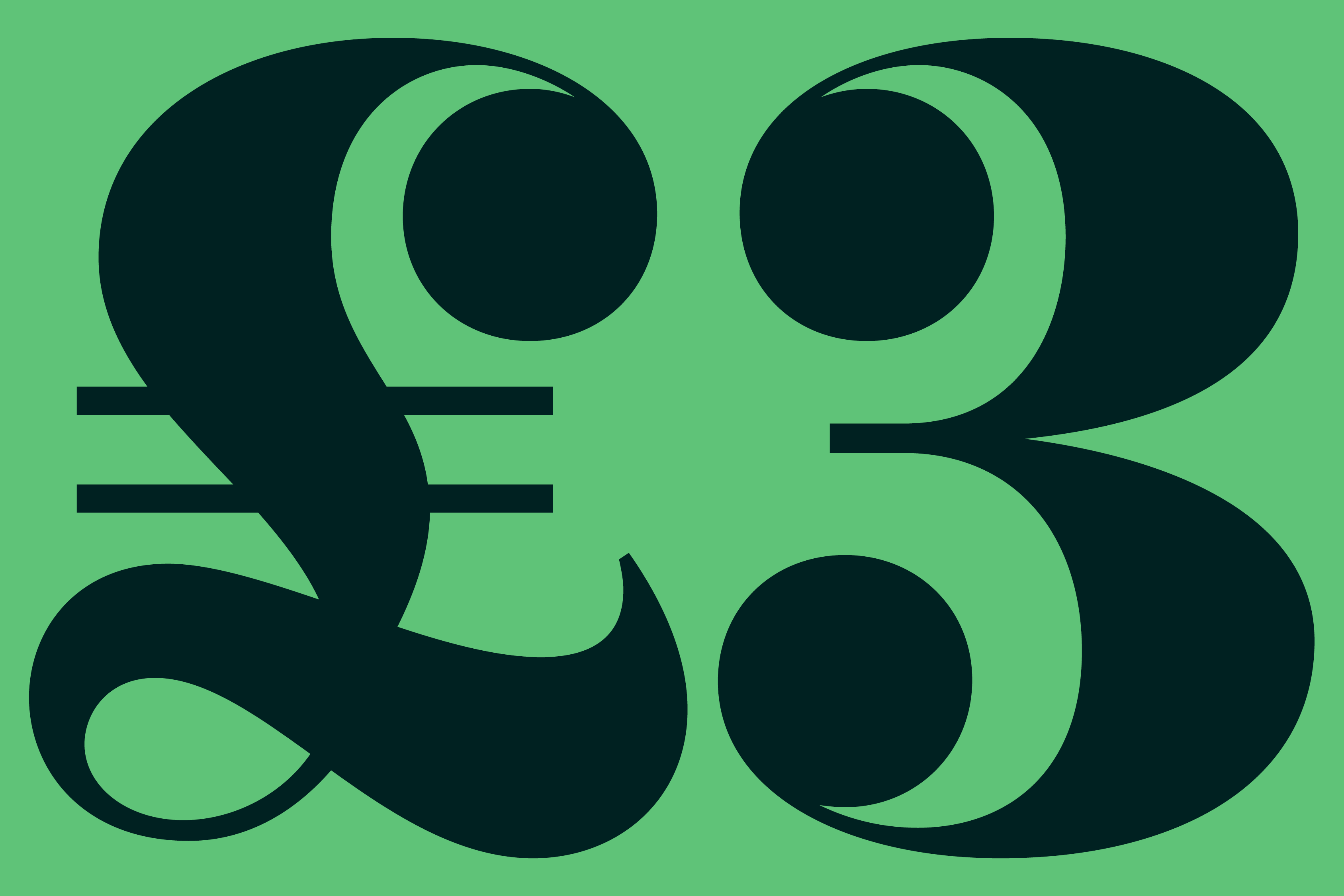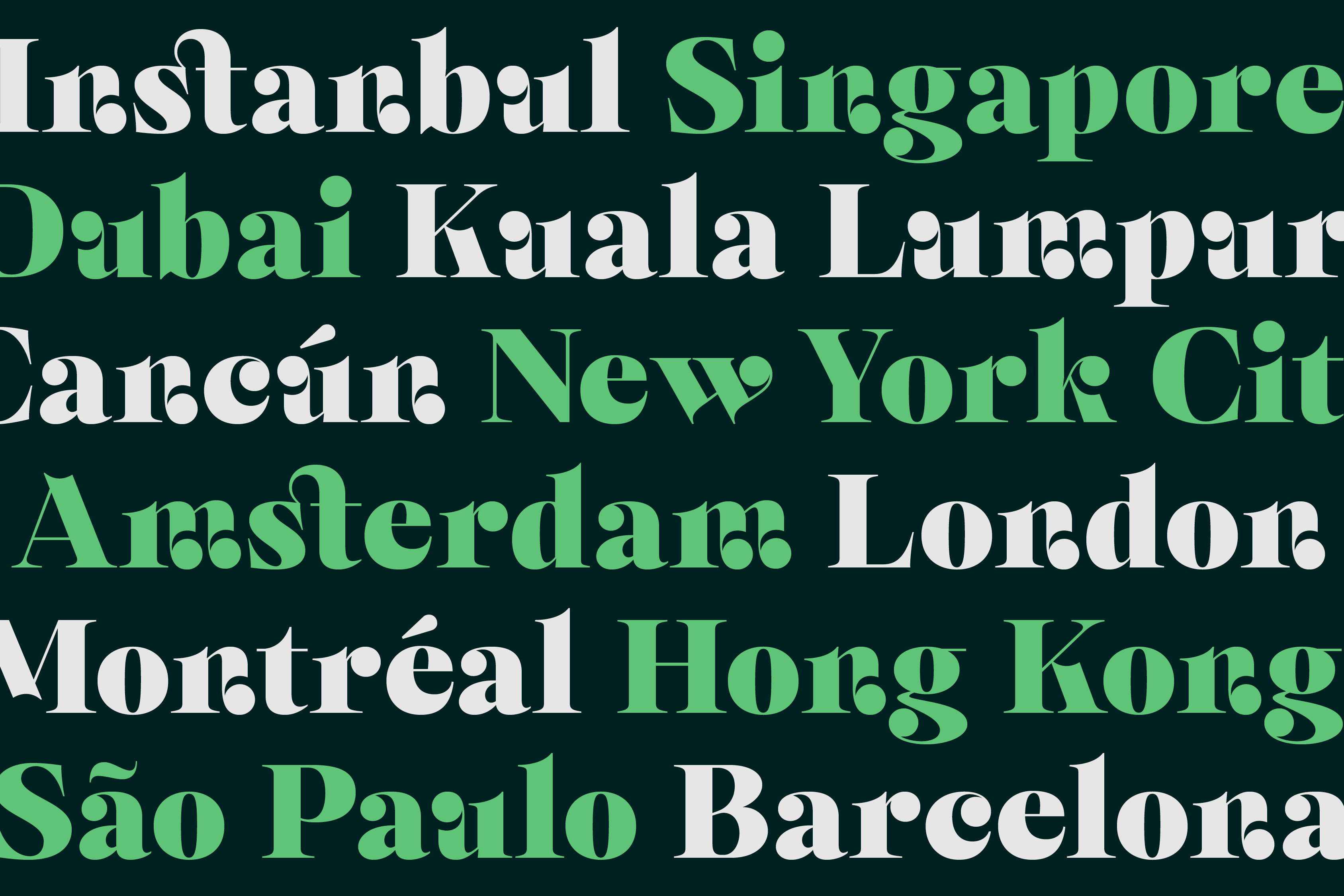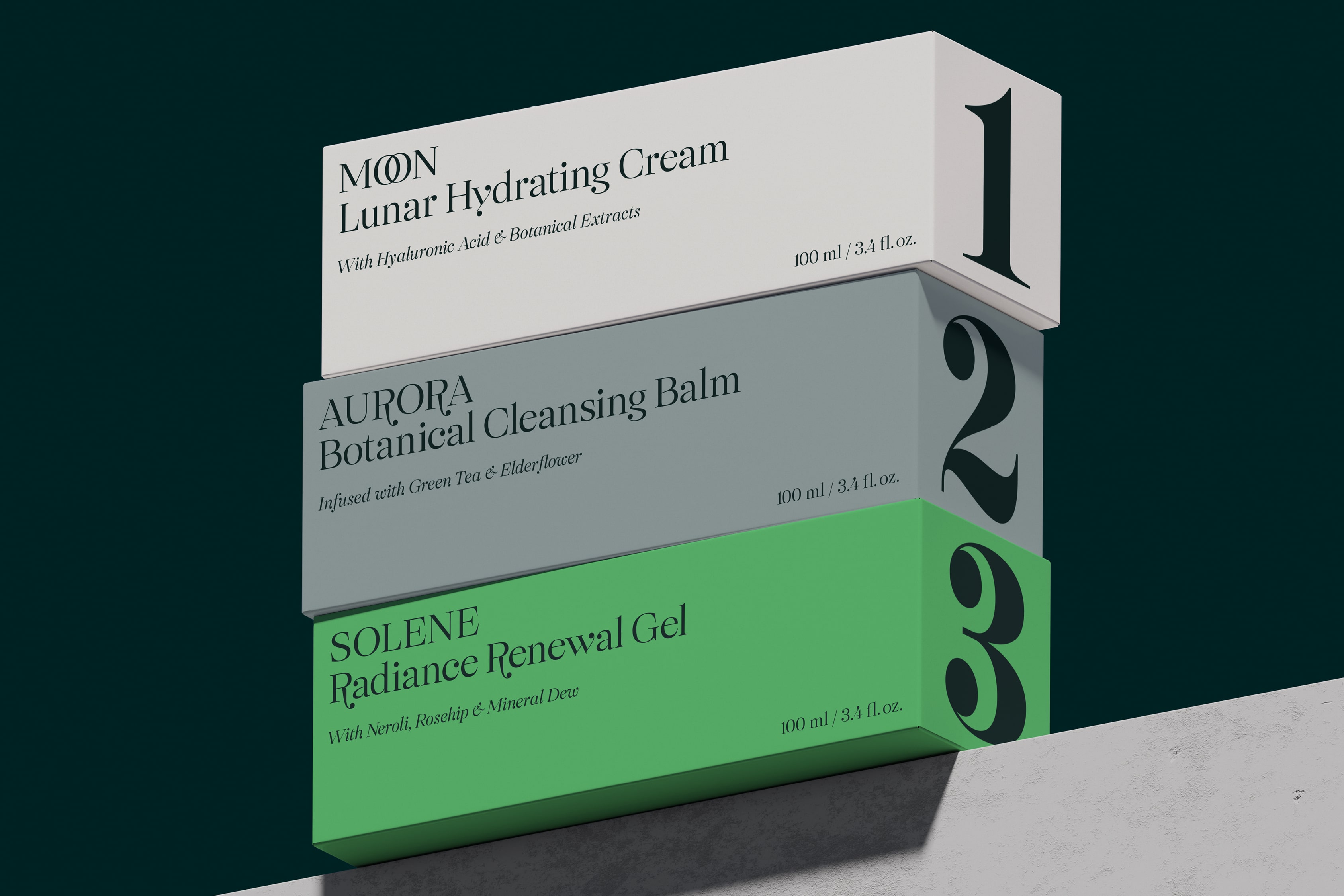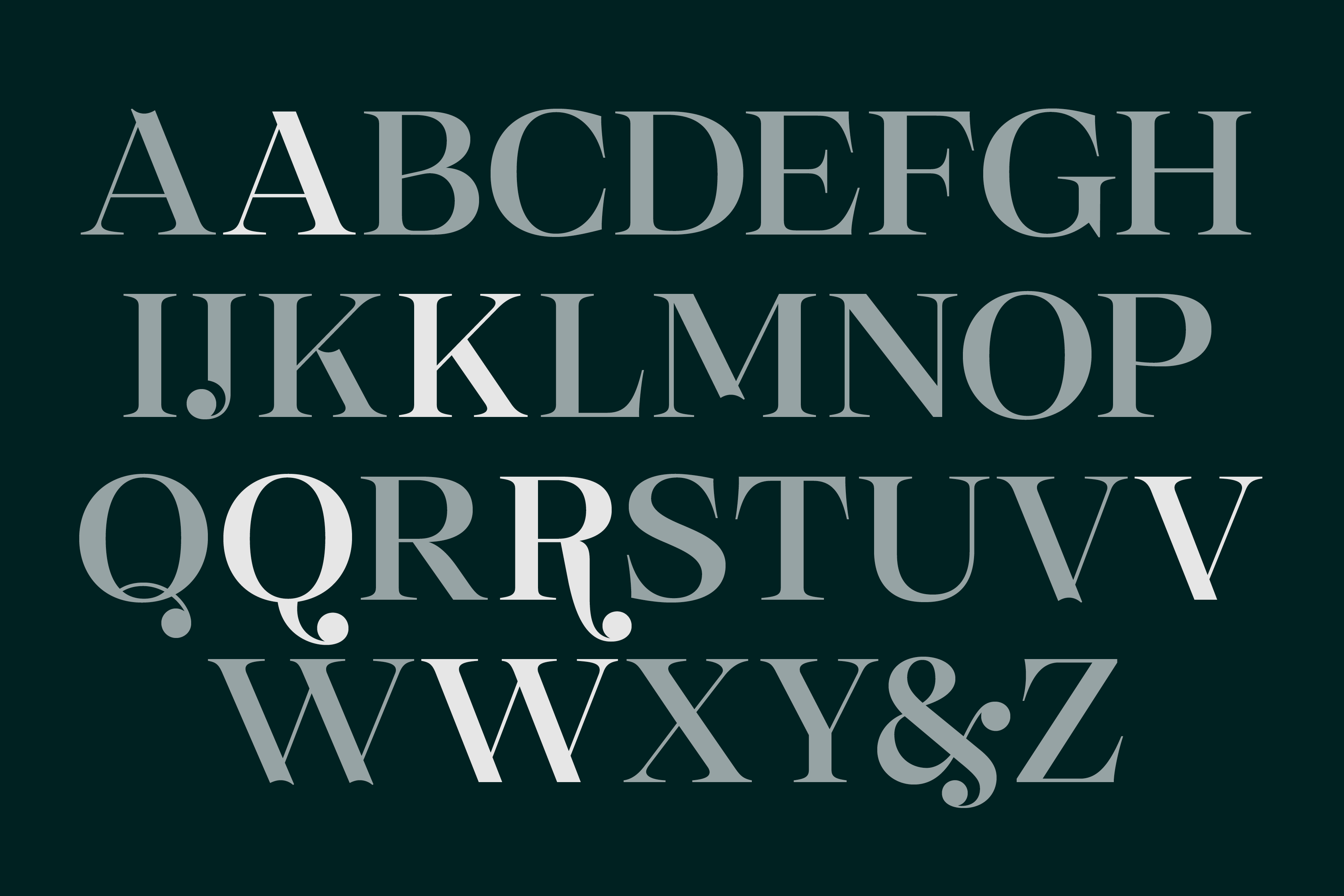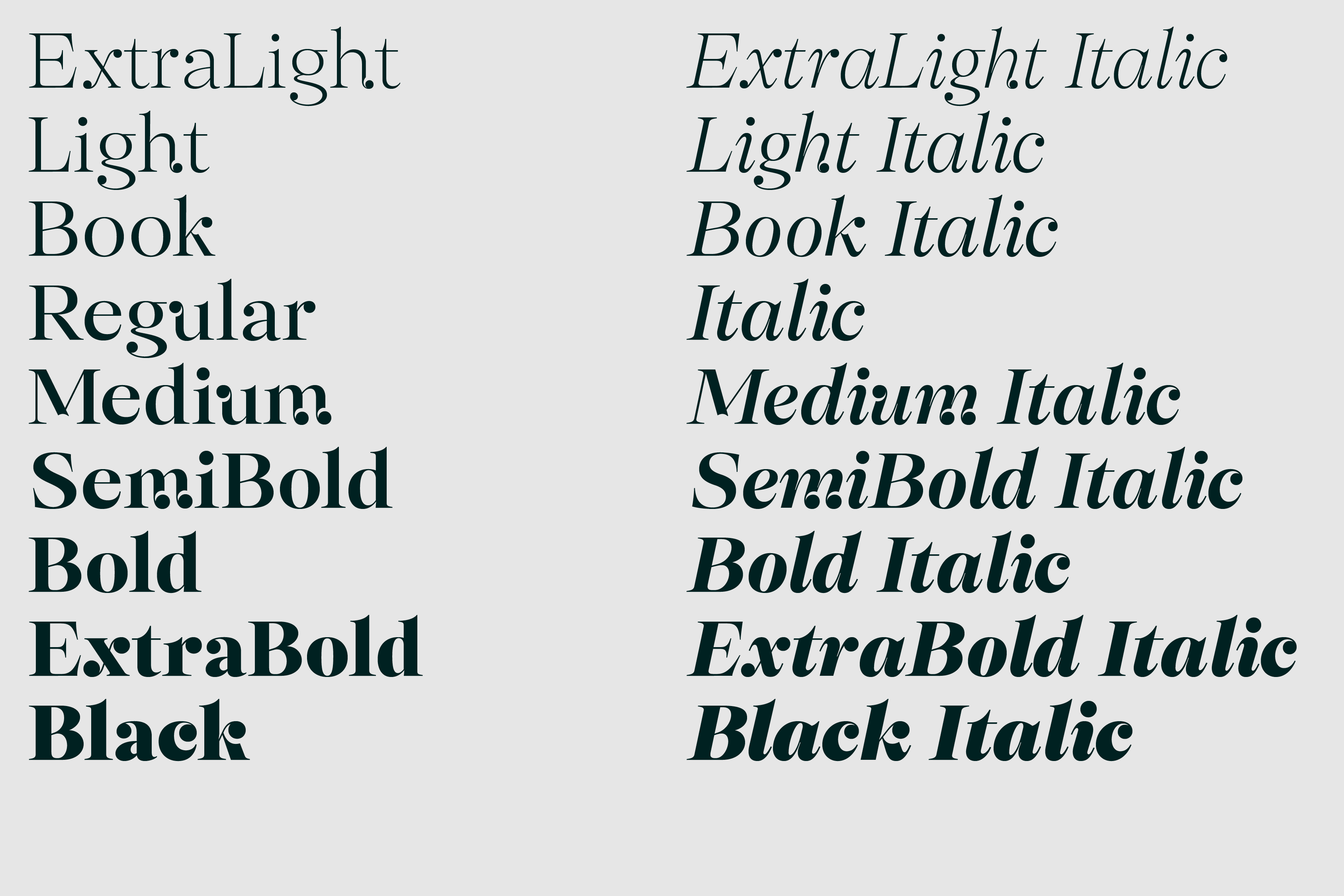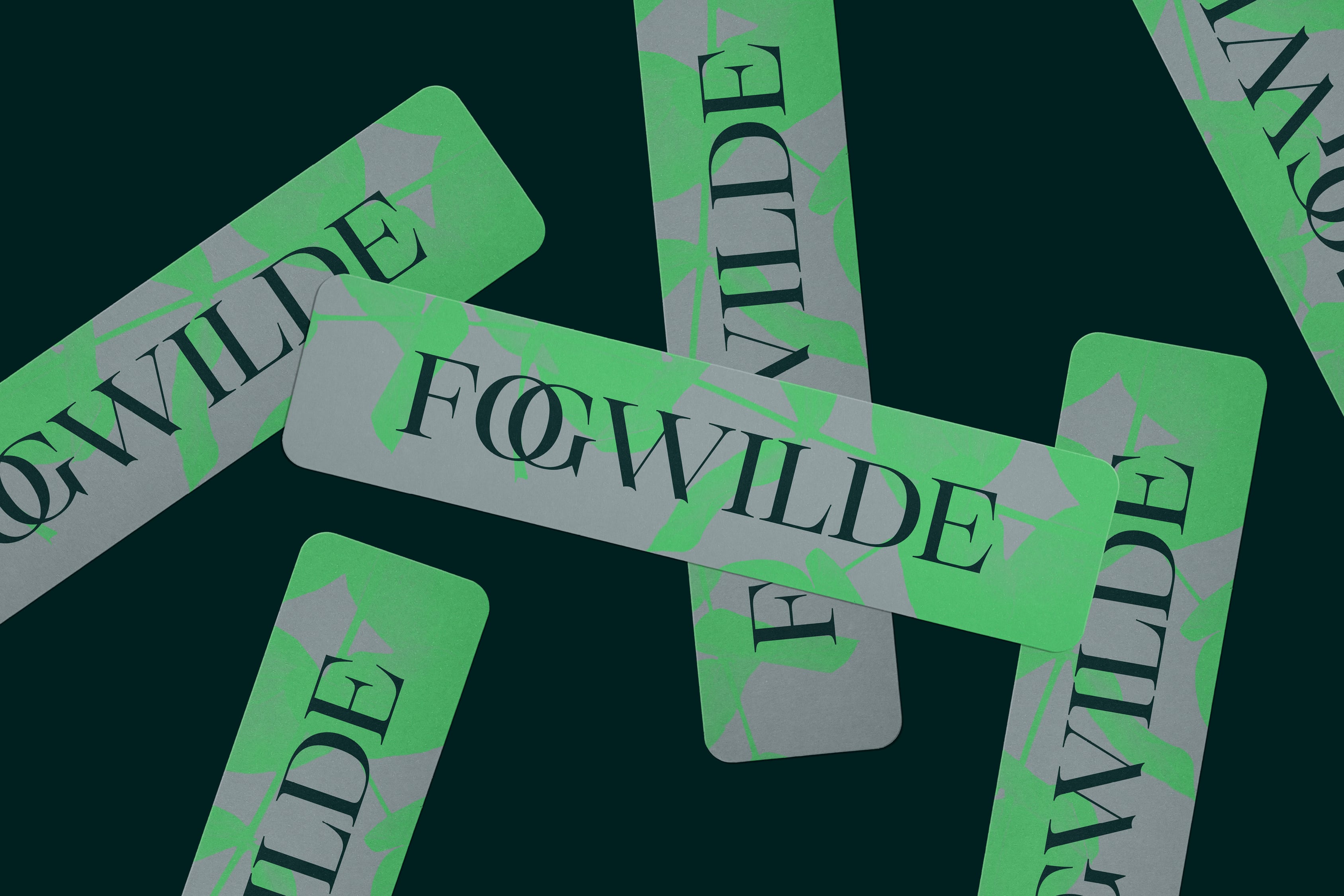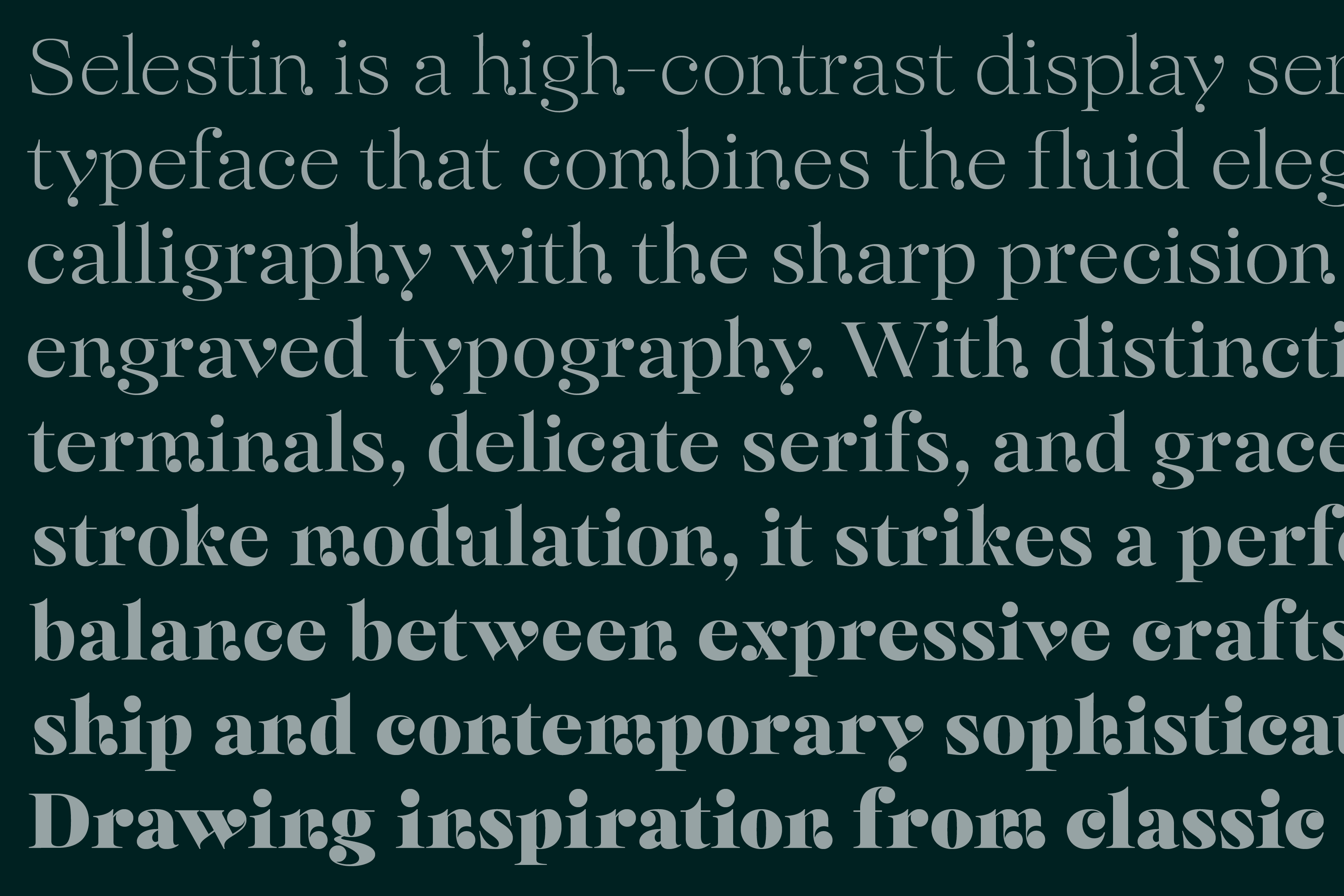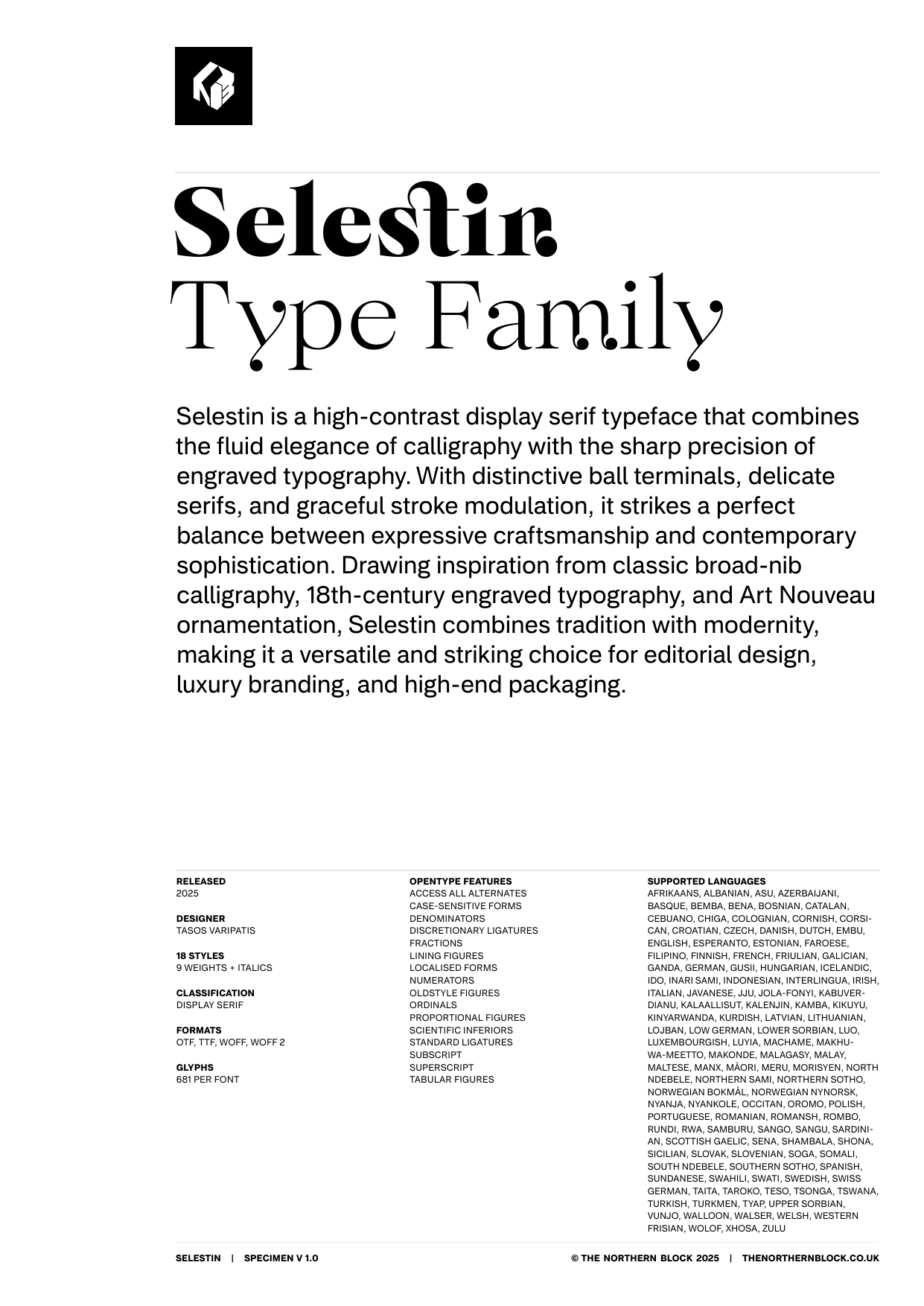
Selestin
Selestin is a high-contrast display serif typeface that combines the fluid elegance of calligraphy with the sharp precision of engraved typography. With distinctive ball terminals, delicate serifs, and graceful stroke modulation, it strikes a perfect balance between expressive craftsmanship and contemporary sophistication.
Drawing inspiration from classic broad-nib calligraphy, 18th-century engraved typography, and Art Nouveau ornamentation, Selestin combines tradition with modernity, making it a versatile and striking choice for editorial design, luxury branding, and high-end packaging.
With 681 characters per style, Selestin supports a wide range of Latin-based languages and provides users with extensive OpenType features, such as contextual alternates, standard and discretionary ligatures, and localised forms. A full range of numeral styles, including lining, tabular, proportional, and oldstyle, adds flexibility, while case-sensitive forms and 14 stylistic sets offer creative freedom. These features give Selestin a refined, timeless feel—ideal for designers and typographers seeking both classic elegance, and modern typographic control.